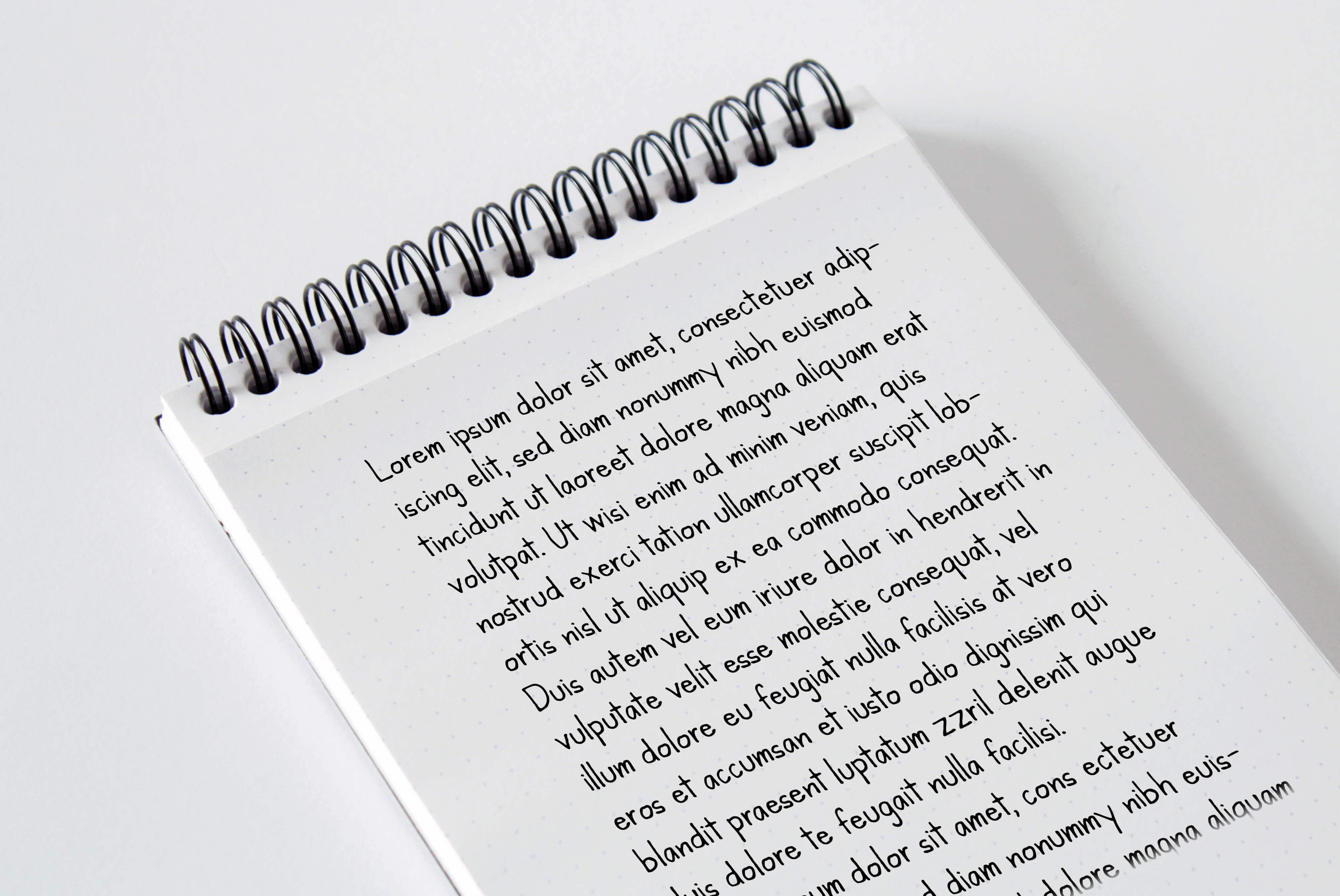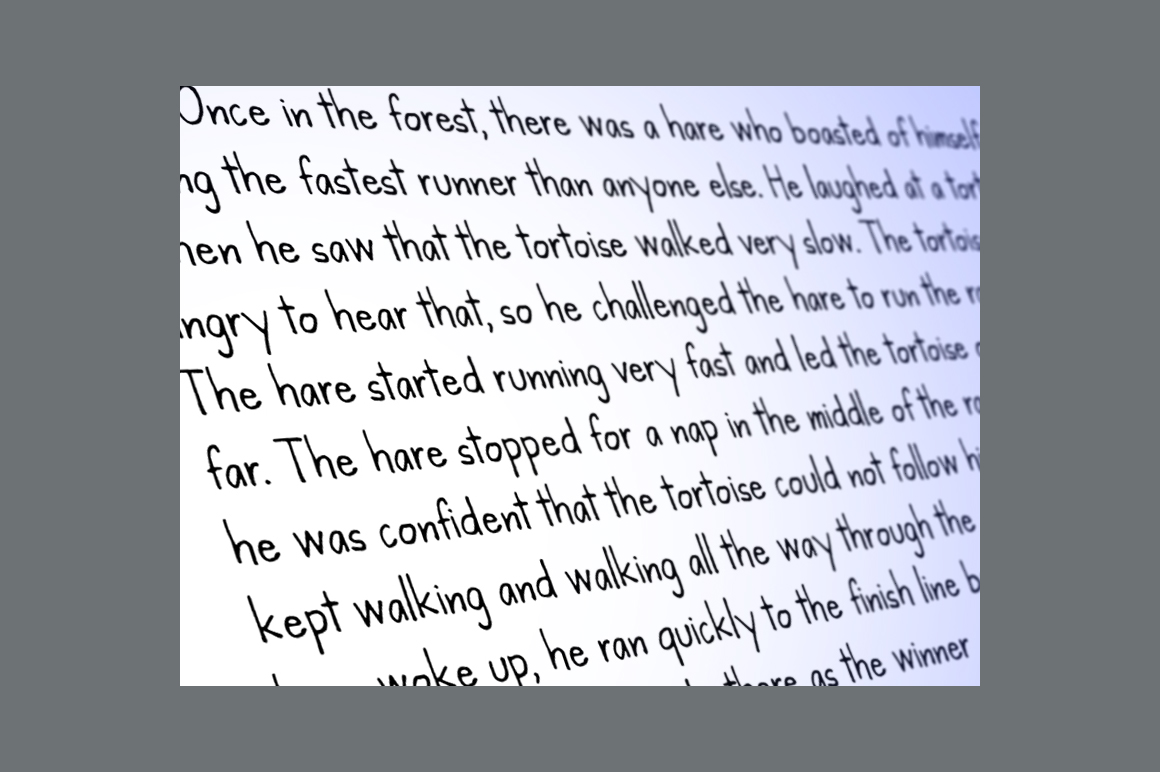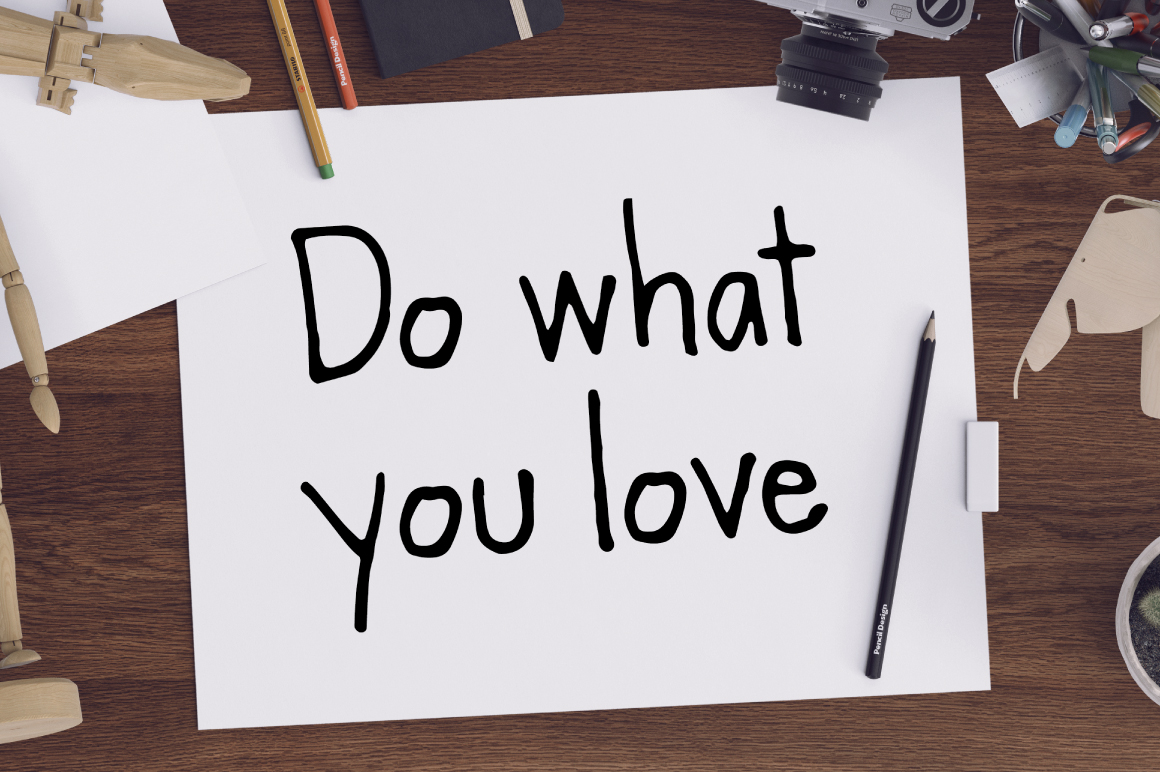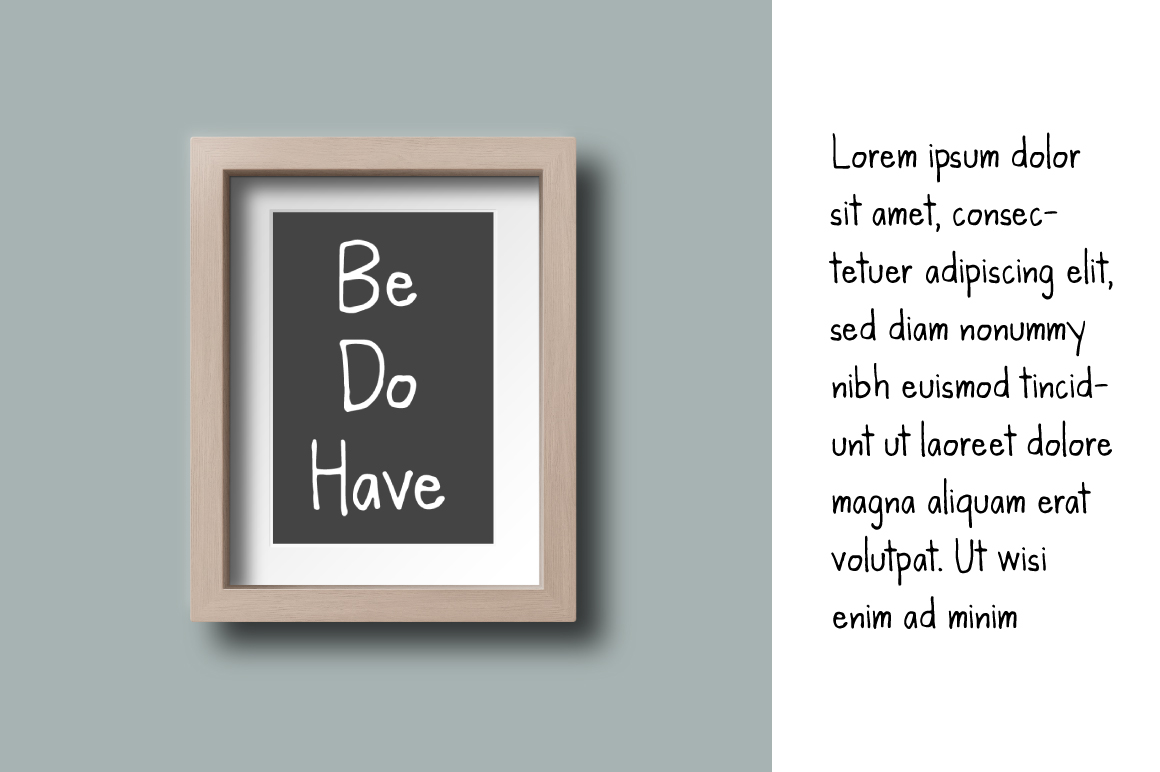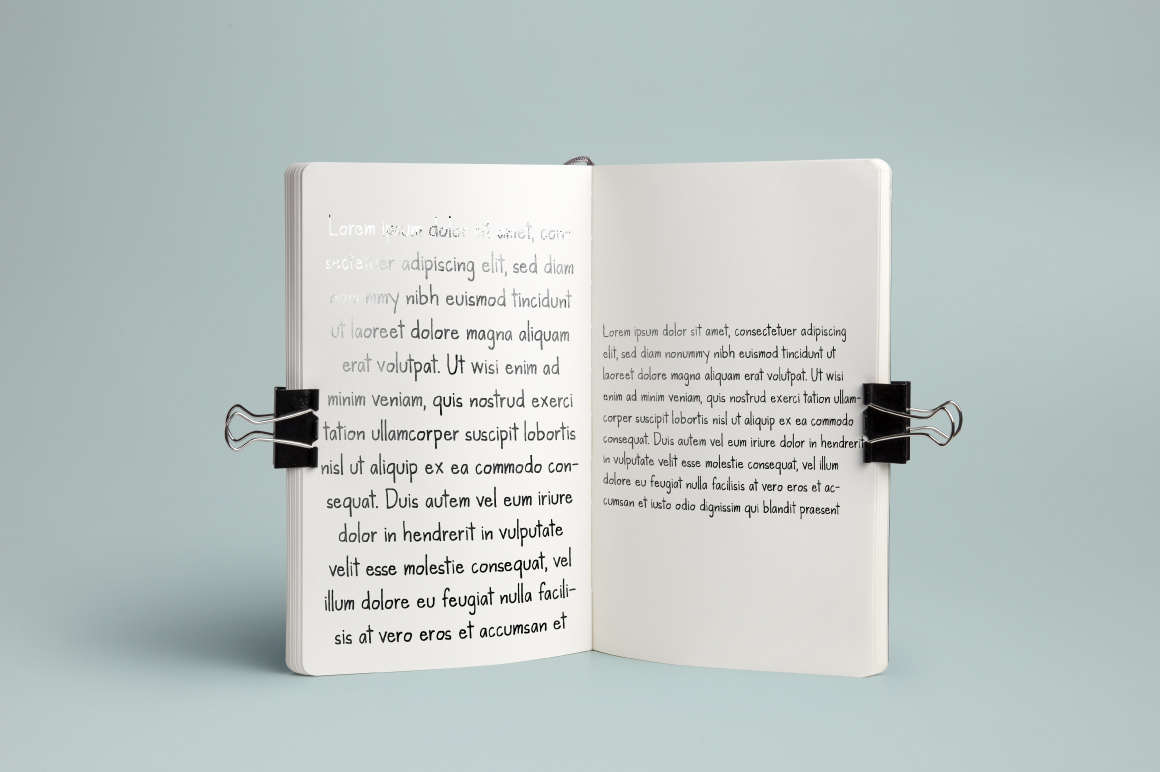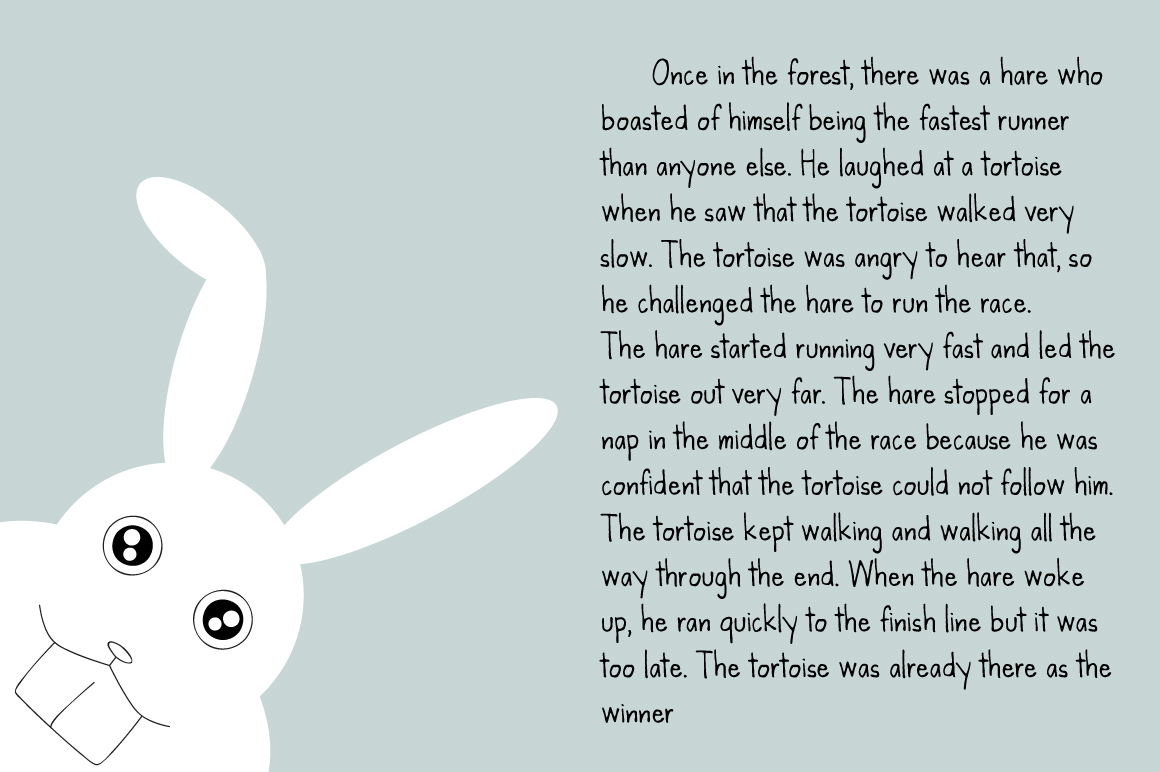
Discovering the Magic of Kanda Font
Do you remember that moment when you stumbled upon the perfect font for your creative project? It’s like finding a hidden gem in a treasure trove of design resources. For me, that moment came when I discovered the Kanda Font. Its unique, handwritten style, reminiscent of a fountain pen, immediately caught my attention. The relaxed, friendly vibe it exudes is perfect for any design project that needs a touch of warmth and approachability.
What makes Kanda Font truly special is its high quality and versatility. It’s a sans serif font that’s easy to read, even on a transparent background, making it an ideal choice for designers who need a clean and modern look. And the best part? It’s available for free download, making it a valuable resource for any creative project. Whether you’re designing a logo, a website, or a social media campaign, Kanda Font is sure to be a game-changer.
Key Features of Kanda Font
- High-quality font design for creative projects: Kanda Font offers a unique and stylish look that can elevate any design resource.
- Transparent background: Kanda Font features a transparent background, allowing designers to easily overlay the font on any image or background.
- High-resolution design: Kanda Font is designed at a high resolution, making it suitable for use in large-scale designs, such as billboards and posters.
- Easy to use: With its clean and simple design, Kanda Font is easy to read and use, even in small font sizes.
Honest Review: Kanda Font
As a designer, I’ve had the chance to work with a variety of fonts and design resources. Recently, I’ve been experimenting with the Kanda Font, and I’m excited to share my thoughts on this free download.
What works well: ✨ I’m impressed by the clean and modern aesthetic of Kanda Font. The font’s transparent background allows for seamless integration into any design project, making it a great addition to my design resource collection. The font’s high quality is evident in its crisp lines and well-spaced characters.
What could be improved: ⚠️ While I appreciate the free download aspect of Kanda Font, I do wish there were more font weights and styles available. Currently, the font is limited to a single weight, which can make it less versatile for certain creative projects.
Overall impression: I’m a fan of Kanda Font and appreciate its simplicity and elegance. With a bit more variation in font weights and styles, I believe it could be a top choice for designers looking for a high-quality, free design resource.
Pros and Cons:
- ✨ Clean and modern aesthetic
- ✨ Transparent background
- ✨ High-quality design
- ⚠️ Limited font weights and styles
- ⚠️ Not suitable for projects requiring multiple font weights
Introduction to Kanda Font
Kanda Font is a free download design resource ideal for creative projects that require a high-quality, elegant font. This versatile font features a transparent background, making it perfect for use on various backgrounds.
Common Use Cases for Kanda Font
Kanda Font is perfect for use in wedding invitations, business cards, and marketing materials. Its elegant design makes it ideal for use in formal and professional settings.